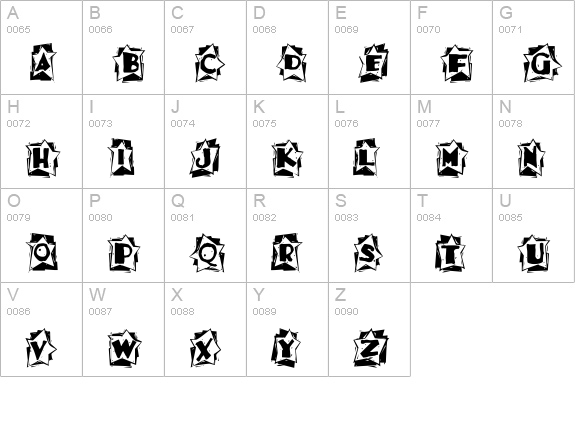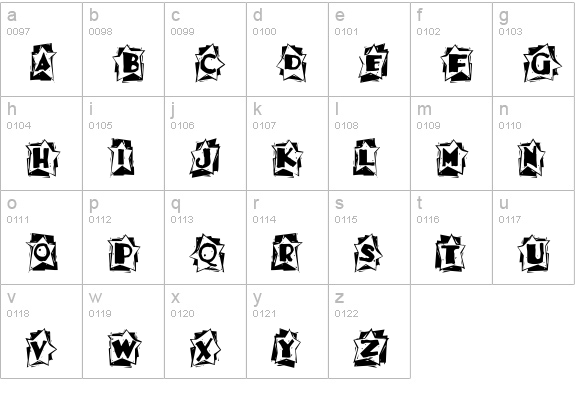
A Star is Born Font Details
Introducing A Star is Born, a sensational font that captures the essence of stardom and undeniable charisma. With its elegant curves and bold presence, this typeface exudes confidence and glamour. It is the perfect choice for capturing attention and making a statement. The A Star is Born font offers a unique blend of sophistication and playfulness, making it suitable for a wide range of design projects. Whether you're creating posters for a Hollywood-inspired event, designing eye-catching logos, or crafting stunning invitations, this font is sure to elevate your creations to new heights. But what makes A Star is Born even more exceptional is that it is freely available to download at FontsMarket.com. That's right, you can harness the power of this extraordinary font without breaking the bank. It's a dream come true for designers who want high-quality typography without the hefty price tag. With its extensive character set, A Star is Born provides limitless possibilities for customization. From lowercase to uppercase letters, numbers, punctuation marks, and special characters, this font has you covered. Its versatility allows you to effortlessly bring your visions to life and create captivating designs that leave a lasting impression. But A Star is Born isn't just visually stunning, it's also incredibly easy to use. Whether you're a seasoned designer or just starting out, this font is designed to make your creative process seamless. Its well-crafted letterforms ensure readability and legibility, ensuring that your message shines through loud and clear. Download A Star is Born now from FontsMarket.com and unleash your creativity with this exceptional font. Elevate your designs, captivate your audience, and make a lasting impression. The world is your stage, and A Star is Born is your ticket to success.